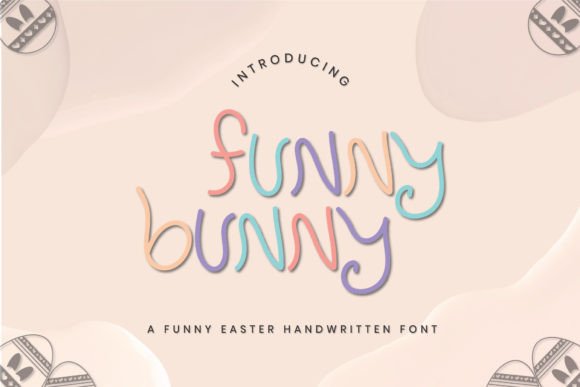
Introducing Funny Bunny Font: The Perfect Addition to Your Easter-Themed Projects
Are you looking for a font that can add a playful touch to your Easter-themed projects? Look no further than the Funny Bunny Font. This clean, cute, and modern handwritten font is designed to bring a unique style that exudes warmth and versatility, making it perfect for a wide range of creative ventures.
Key Features of Funny Bunny Font
- Clean and Modern Design: The Funny Bunny Font boasts a clean and modern design that is both visually appealing and easy to read.
- Cute and Playful: The font’s playful and cute design makes it perfect for Easter-themed projects, adding a touch of whimsy and fun.
- Handwritten Style: The font’s handwritten style gives it a personal and unique touch, making it stand out from more traditional fonts.
- Versatile: The Funny Bunny Font is versatile and can be used for a wide range of creative ventures, from DIY crafts to professional design projects.
Project Ideas Using Funny Bunny Font
The Funny Bunny Font is perfect for a variety of Easter-themed projects, including:
- T-Shirts: Create fun and playful Easter-themed t-shirts using the Funny Bunny Font.
- Mugs: Add a personal touch to your Easter-themed mugs with this adorable font.
- Greeting Cards: Create unique and personalized Easter greeting cards using the Funny Bunny Font.
- Magazines: Use the font to add a playful touch to your Easter-themed magazine layouts.
- Packaging: Add a personal touch to your Easter-themed packaging with this cute and modern font.
- Posters: Create eye-catching Easter-themed posters using the Funny Bunny Font.
- Shopping Bags: Add a playful touch to your Easter-themed shopping bags with this versatile font.
- Book Covers: Use the Funny Bunny Font to create unique and eye-catching Easter-themed book covers.
Design Tips for Using Funny Bunny Font
Here are some design tips to keep in mind when using the Funny Bunny Font:
- Pair with Other Fonts: Experiment with pairing the Funny Bunny Font with other fonts to create a unique and visually appealing design.
- Use Bright Colors: The Funny Bunny Font looks great with bright and pastel colors, perfect for Easter-themed designs.
- Experiment with Sizes: Play around with different font sizes to create visual interest and hierarchy in your design.
- Add Graphics: Consider adding Easter-themed graphics, such as bunnies or eggs, to enhance your design.
Benefits of Using Funny Bunny Font
The Funny Bunny Font offers several benefits, including:
- Unique Style: The font’s unique style sets it apart from more traditional fonts and adds a personal touch to your designs.
- Easy to Read: The font is easy to read, making it perfect for body text and headings.
- Versatile: The font’s versatility makes it suitable for a wide range of creative ventures, from DIY crafts to professional design projects.